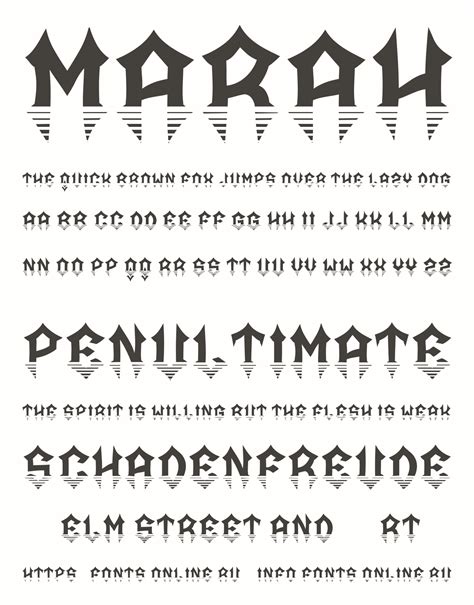
Hey design lovers! Let’s dive into the awesome world of Marah fonts . If you’re on the hunt for some seriously cool typography to spice up your projects, you’ve come to the right place, guys. Marah fonts offer a unique blend of style and personality that can really make your designs pop. Whether you’re working on a logo, a website, a poster, or even just a social media post, the right font can totally transform the vibe. And when it comes to unique and expressive typefaces, Marah fonts are definitely worth checking out. They come in various styles, from elegant and sophisticated to bold and playful, giving you a ton of flexibility to match your creative vision. So, stick around as we explore what makes these fonts so special and where you can find them to elevate your next design masterpiece.
Why Choose Marah Fonts for Your Projects?
So, what’s the big deal with Marah fonts , you ask? Well, for starters, they bring a fresh perspective to the typography scene. In a world flooded with generic fonts, Marah offers something distinct. These aren’t your everyday, run-of-the-mill typefaces; they’re crafted with intention and flair. Think about it: the font you choose is the voice of your brand or project. If you want to sound approachable, modern, or even a bit edgy, a Marah font can help you achieve that. They often feature unique ligatures, alternates, and stylistic sets that allow for deep customization, letting you fine-tune the look to perfection. This level of detail is what separates good design from great design. Moreover, the versatility of Marah fonts is a huge plus. You’ll find options that work brilliantly for headlines, making a bold statement, and others that are perfectly legible for body text, ensuring your message gets across clearly and stylishly. We’re talking about fonts that can adapt to a wide range of applications, from edgy streetwear branding to elegant wedding invitations. The careful attention to detail in each glyph ensures a professional and polished final product, no matter the scale of your project. Plus, many Marah font families come with a comprehensive set of weights and styles, meaning you can create a cohesive typographic system within your design without needing to switch to a completely different font family. This consistency is key in building a strong visual identity. So, if you’re aiming to stand out and leave a lasting impression, incorporating Marah fonts into your toolkit is a smart move, guys. They provide that extra je ne sais quoi that can elevate your work from ordinary to extraordinary, making your designs memorable and impactful.
Discovering the Marah Font Collection
Tips for Using Marah Fonts Effectively
Now that you’ve got your hands on some killer Marah fonts , how do you make sure you’re using them like a total pro, guys? It’s all about balance and context. First off, don’t overdo it . While Marah fonts can be super expressive, using too many different styles in one design can create visual chaos. Pick one or two complementary Marah fonts that work well together. For example, a strong Marah sans-serif for headlines and a more subtle, readable Marah serif for body text is a classic combo. Secondly, consider the hierarchy . Make sure your main message grabs attention with a bolder or larger Marah font, while supporting information is presented in a way that’s easy to read. This guides the viewer’s eye through your design effectively. Legibility is key , especially for longer blocks of text. If your chosen Marah font is highly stylized, it might be better suited for short bursts of text like titles or call-to-action buttons, rather than paragraphs. Always test your text at different sizes to ensure it remains clear and readable. Another crucial tip is to pair them thoughtfully . Marah fonts often have a strong personality, so think about what other elements your design will include. Do they have a modern, minimalist vibe? Or are they more ornate and decorative? Choose supporting fonts or design elements that harmonize with, rather than clash with, the Marah font’s character. Sometimes, pairing a unique Marah font with a very simple, neutral font can create a beautiful contrast that makes the Marah font truly shine. Lastly, pay attention to spacing and kerning . Even the most beautiful font can look messy if the letters are too close together or too far apart. Most design software allows you to adjust kerning (the space between specific letter pairs) and tracking (overall letter spacing) to achieve a polished look. Taking a little extra time to fine-tune these details can make a world of difference. By following these tips, you’ll be able to harness the full potential of Marah fonts and create designs that are not only visually stunning but also communicate your message effectively. Happy designing, everyone!